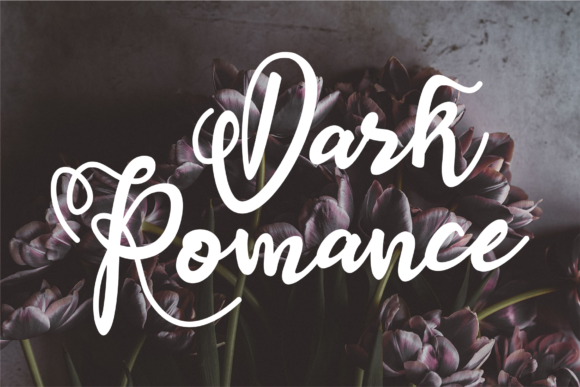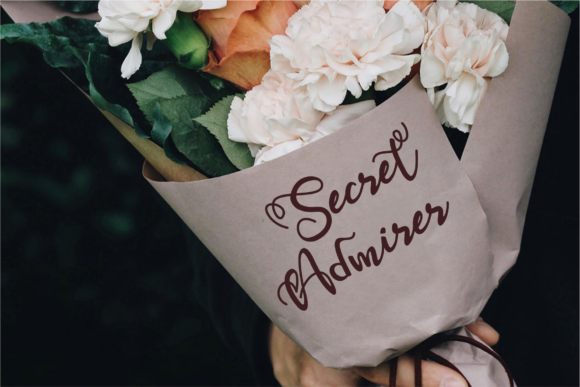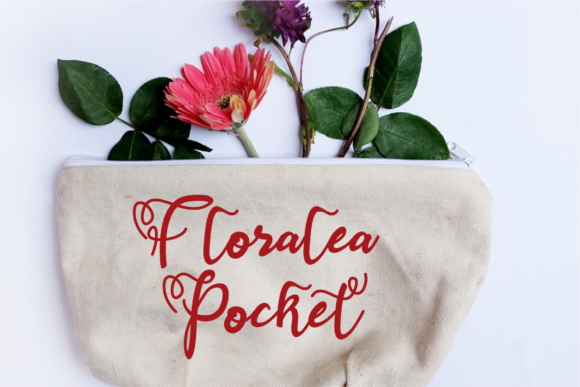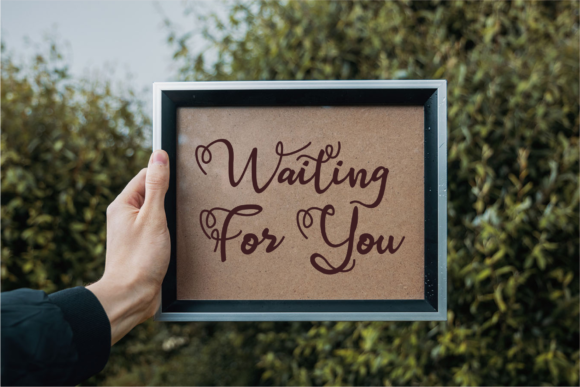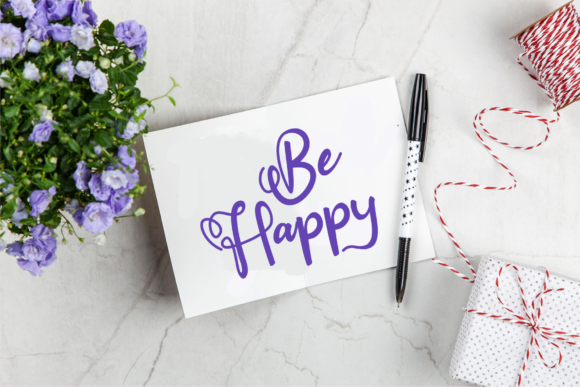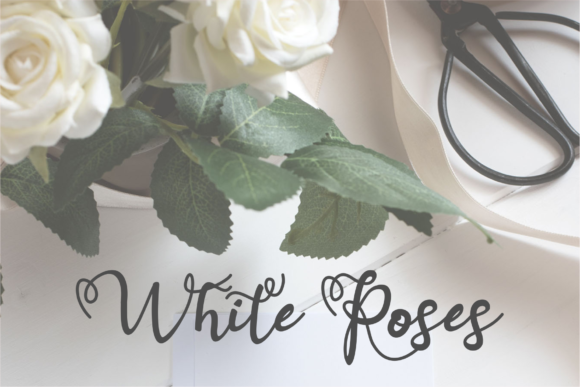
Introducing Berthany Font: The Sweet and Joyful Handwritten Font
Are you looking for a font that can add a touch of sweetness and joy to your designs? Look no further than Berthany Font! This beautiful handwritten font is incredibly versatile and perfect for creating a wide range of projects, from wedding invitations and stationary art to social media posts and more.
What Makes Berthany Font So Special?
Berthany Font is a unique and charming handwritten font that is sure to capture the hearts of designers and crafters alike. Its sweet and joyful style makes it perfect for projects that require a personal touch, such as:
- Stationary art and greeting cards
The Versatility of Berthany Font
One of the best things about Berthany Font is its incredible versatility. This font can be used in a variety of contexts, from formal to informal, and can be paired with a range of other design elements to create a unique look. Whether you’re creating a beautiful wedding invitation or a fun social media post, Berthany Font is sure to add a touch of personality and whimsy to your design.
Design Tips and Tricks
Here are a few design tips and tricks to help you get the most out of Berthany Font:
- Pair Berthany Font with a simple background to make it stand out
- Use Berthany Font in combination with other fonts to create a unique and interesting contrast
- Don’t be afraid to get creative and try new things – Berthany Font is a versatile font that can handle it!
Why Designers and Crafters Love Berthany Font
Berthany Font has quickly become a favorite among designers and crafters, and it’s easy to see why. This font offers a range of benefits, including:
- A unique and charming style that’s sure to stand out
- Incredible versatility – use it for a wide range of projects and applications
- Easy to read and understand, making it perfect for body text and headlines
- A great way to add a personal touch to your designs and connect with your audience
Get Creative with Berthany Font
Berthany Font in Action
Still not sure what Berthany Font can do? Take a look at some examples of this font in action:
- Wedding invitations: Use Berthany Font to create beautiful and elegant wedding invitations that set the tone for the big day.
- Stationary art: Create stunning stationary art with Berthany Font, perfect for sharing with friends and family.
- Social media posts: Use Berthany Font to add a touch of personality to your social media posts and connect with your audience.
In conclusion, Berthany Font is a sweet and joyful handwritten font that’s perfect for designers and crafters who want to add a touch of personality to their designs. With its incredible versatility and charming style, this font is sure to become a favorite in your toolkit. So why wait? Download Berthany Font today and start creating your own beautiful designs!